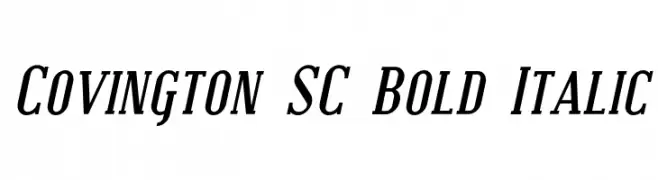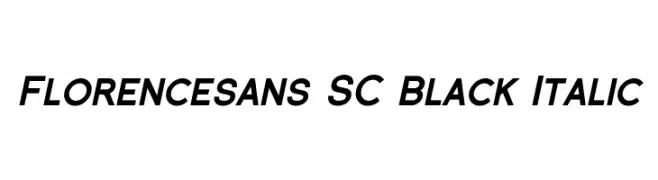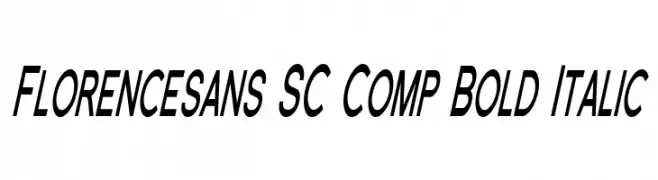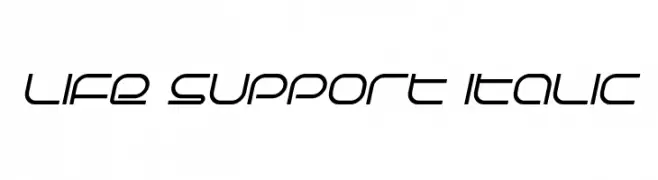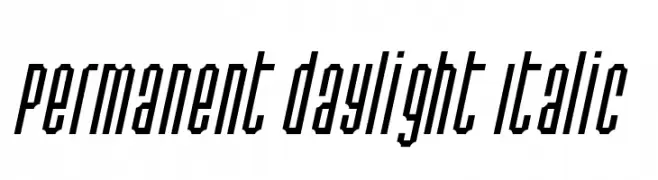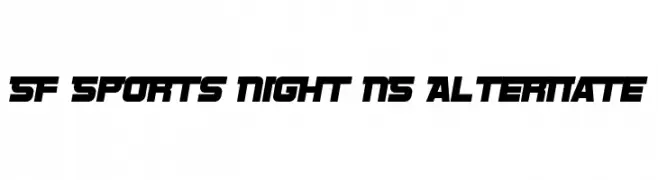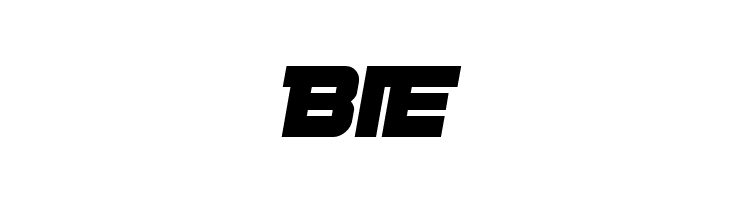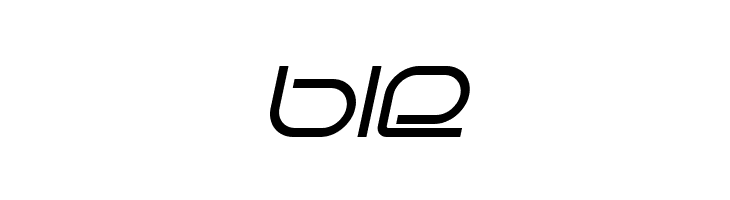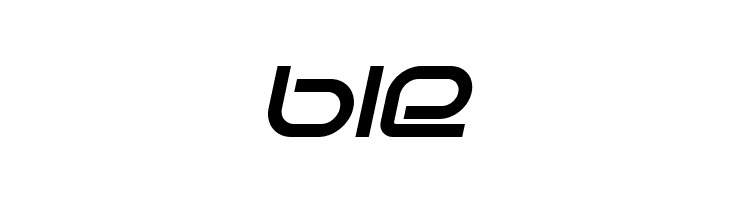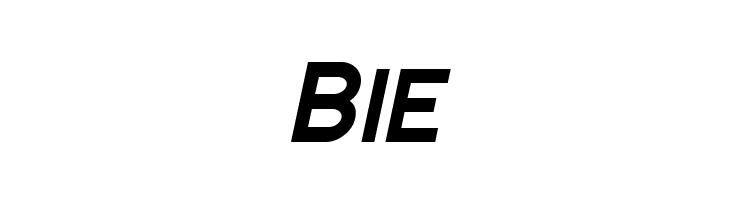
A bold, italicized serif font with strong, dynamic strokes.
A bold, italicized font with a sporty, dynamic style.
A bold, angular font with a futuristic and sporty aesthetic.
A bold, slanted font with a sporty, dynamic style.
A sleek, modern italic font with a futuristic design and consistent line weight.
A bold, italicized font with a futuristic and sleek design.
A bold, italic font with a dynamic, modern style and sharp angles.
A bold, italicized, and condensed font with a dynamic and strong appearance.
A bold, italicized sans-serif font with a modern and dynamic style.
A modern, expanded sans-serif font with an italic slant.